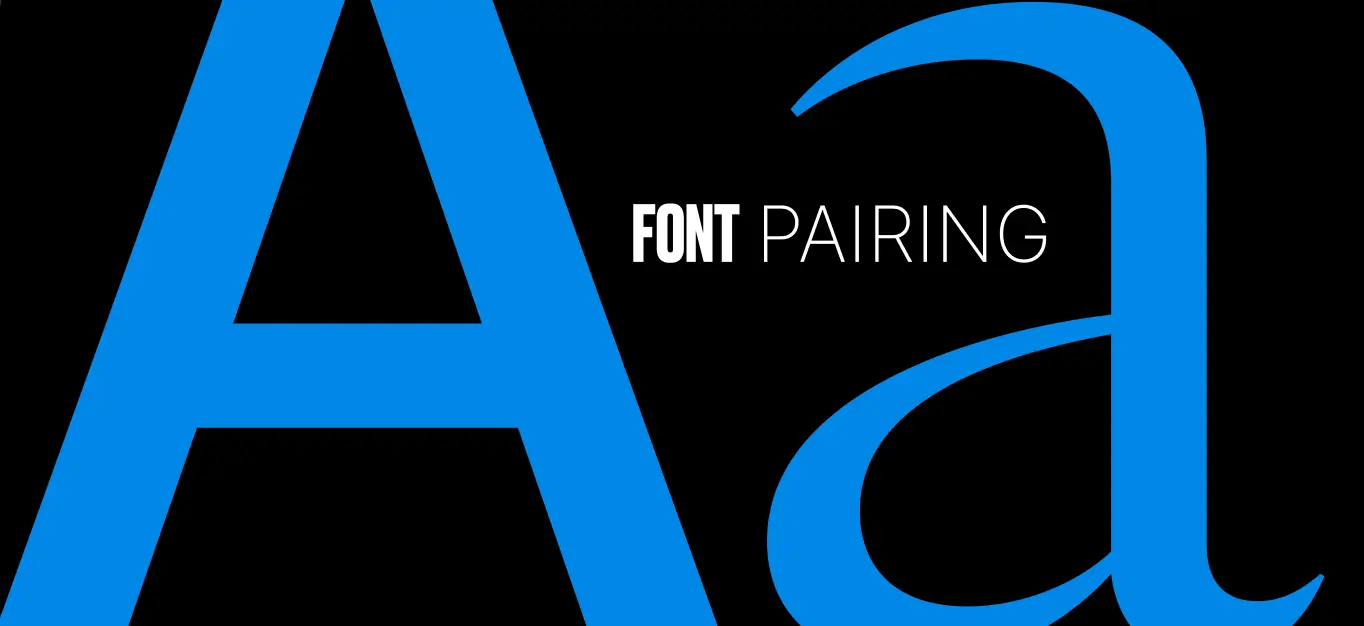
Most small businesses use three, four, sometimes five different fonts across their brand materials. Business cards in one font. Website in another. Social graphics in a third. Print menus in a fourth.
This isn’t sophistication. It’s typographic debt.
Every additional font fragments your visual identity. Customers can’t recognize your brand at a glance. Designers waste time hunting for “that other font we used somewhere.”
Printers receive files with missing fonts. Your marketing team debates endlessly: “Should this Instagram post use the website font or the business card font?”
The answer isn’t more fonts. It’s a system.
The optimal brand stack uses exactly two fonts: a workhorse body font and a distinctive headline font.
This two-font system solves for clarity (body optimized for small-size legibility) and personality (headline carries brand tone) while maintaining visual consistency across every touchpoint.
The two-font rule: Body + headline
Your body font should disappear
Body fonts are infrastructure. Customers shouldn’t notice them — they should simply read effortlessly.
Think of body fonts like building plumbing. When plumbing works, you never think about it. You turn on the tap, water flows. Only when pipes burst do you realize the system exists.
Characteristics of effective body fonts:
- Tall x-height for small-size legibility (maximizes readable area in lowercase letters)
- Multiple weights (at minimum: Regular, Medium, Bold for hierarchy)
- Open counters (the enclosed spaces in letters like ‘e’ and ‘a’) that prevent letterforms from clogging at low resolution
- Neutral personality that doesn’t compete with content
Top body font candidates:
- Inter (SIL OFL) — Screen-optimized grotesque. Variable font with nine axes. Default choice for digital-first businesses (SaaS, apps, web services). Free commercial use including logos.
- Source Sans 3 (SIL OFL) — Adobe’s open-source grotesque. Slightly warmer than Inter, excellent for editorial and content-heavy sites. Variable weights.
- Poppins (SIL OFL) — Geometric sans with friendly, approachable tone. Works well for consumer brands wanting warmth without sacrificing legibility.
- Avenir Next (*Linotype license required) — Humanist sans with rhythmic letterforms. Softer than Helvetica, more refined than Poppins. Requires commercial licensing but signals premium positioning.
Set your longest content block (product description, about page, menu, terms of service) in your body font candidate at 16px. Read it on your phone. If you notice the font more than the content, it’s wrong. Body fonts should be invisible.
Your headline font carries personality
Headline fonts are where your brand speaks. This is your voice in visual form.
While body fonts optimize for function, headline fonts optimize for recognition and differentiation. They signal your category, values, and positioning in a split second.
- For authority and precision: Helvetica Now (Monotype), GT America (Grilli Type), Gotham (Hoefler&Co). These give vibes of professionalism, clarity, and institutional trust. Banks, law firms, consulting agencies, enterprise SaaS.
- For warmth and heritage: Royal Signage or Milkstore (Kittl Heritage Type), Playfair Display (Google Fonts). These add human touch, craft, and history. Coffee shops, bakeries, craft beverage brands, boutique hotels.
- For editorial sophistication: Canela (Commercial Type), Söhne (Klim Type). These signal design maturity and premium positioning. Fashion brands, luxury goods, editorial publications, and high-end hospitality.
The constraint: Your headline font must still pass basic legibility tests. If customers can’t read your restaurant name on a mobile screen or your product name on packaging, personality becomes liability.
Want to understand the technical specs that make fonts legible? Read: Why Variable Fonts are winning in 2026.
Pairing matrices by business vertical
The best pairings combine functional body fonts with personality-driven headline fonts while maintaining clear visual hierarchy. Here’s what works by industry:
1. Finance, legal & professional services
Body: Inter or Avenir Next
Headlines: Helvetica Now or GT America
Why it works: Neutral authority. Clear numerals for financial data. Broad weight range for hierarchy (Regular body, Medium subheads, Bold headlines). Helvetica Now’s optical sizes ensure logo consistency from business cards to billboards.
Real example: A financial advisory firm uses Inter for website body copy, financial disclosures, and client reports (free, screen-optimized). GT America Bold for headlines and the brand wordmark (Grilli Type license covers logo usage). The pairing signals trust without feeling cold.
Adjust font sizes, weights, and spacing based on mockup feedback — not just artboard aesthetics.